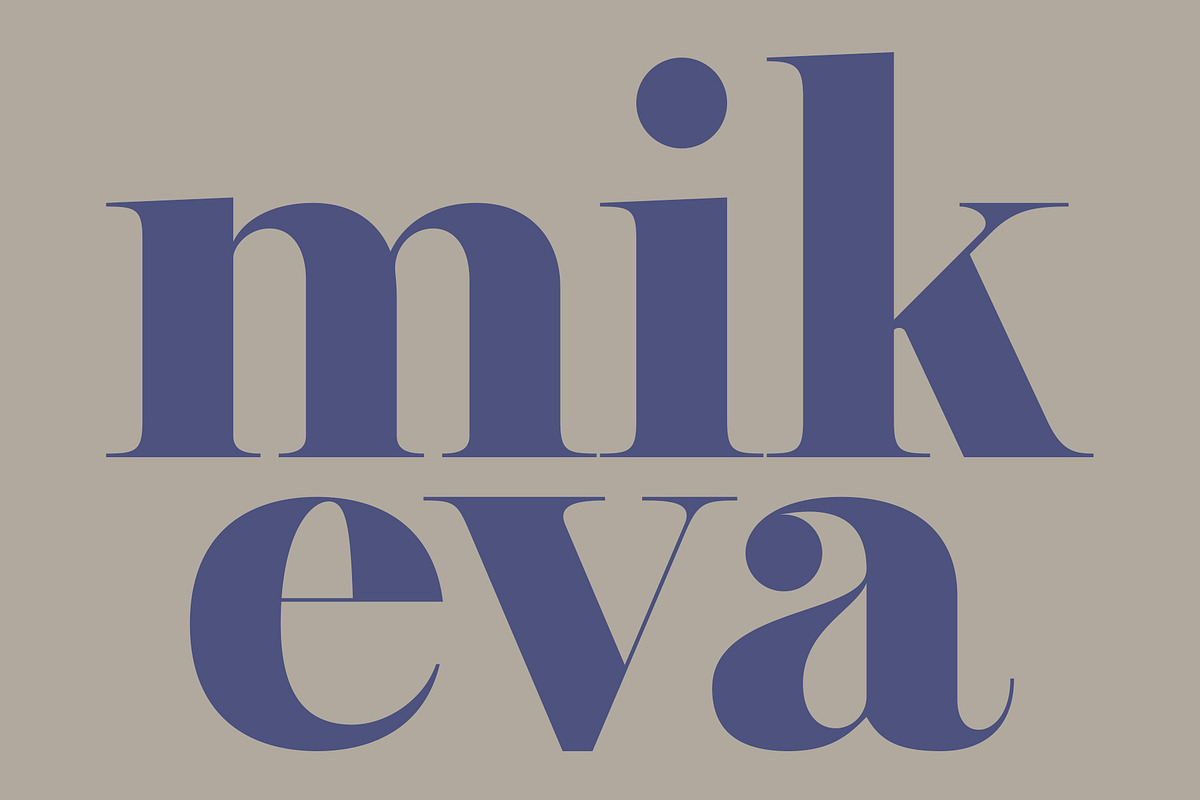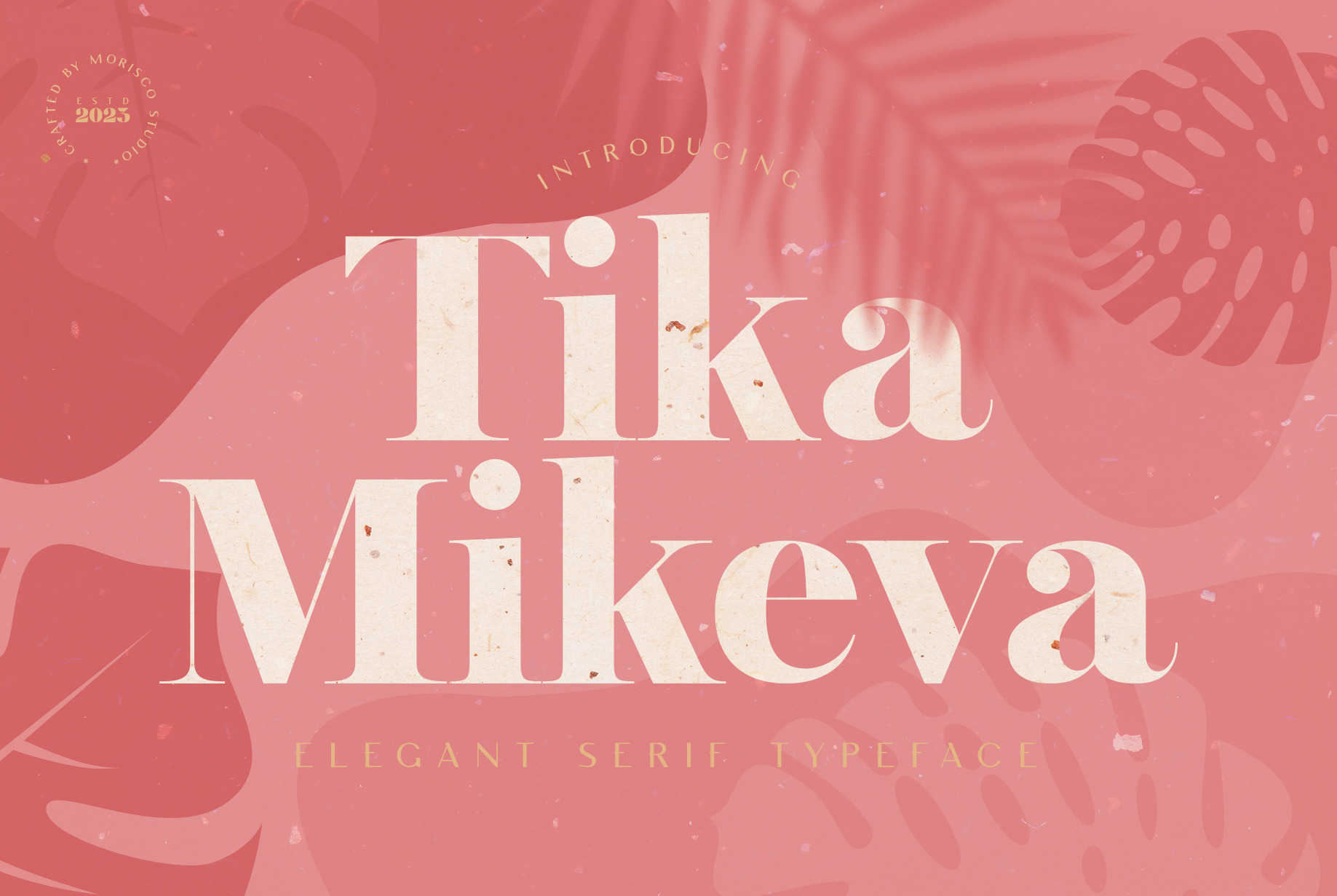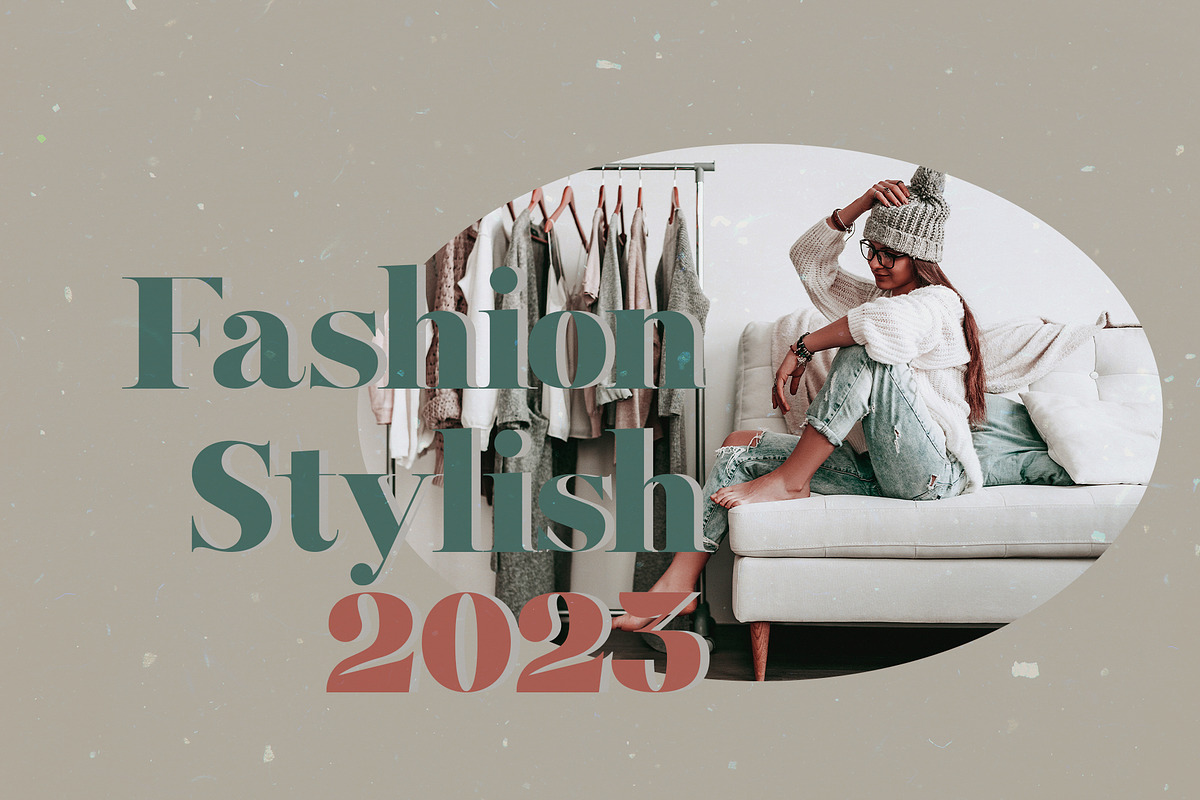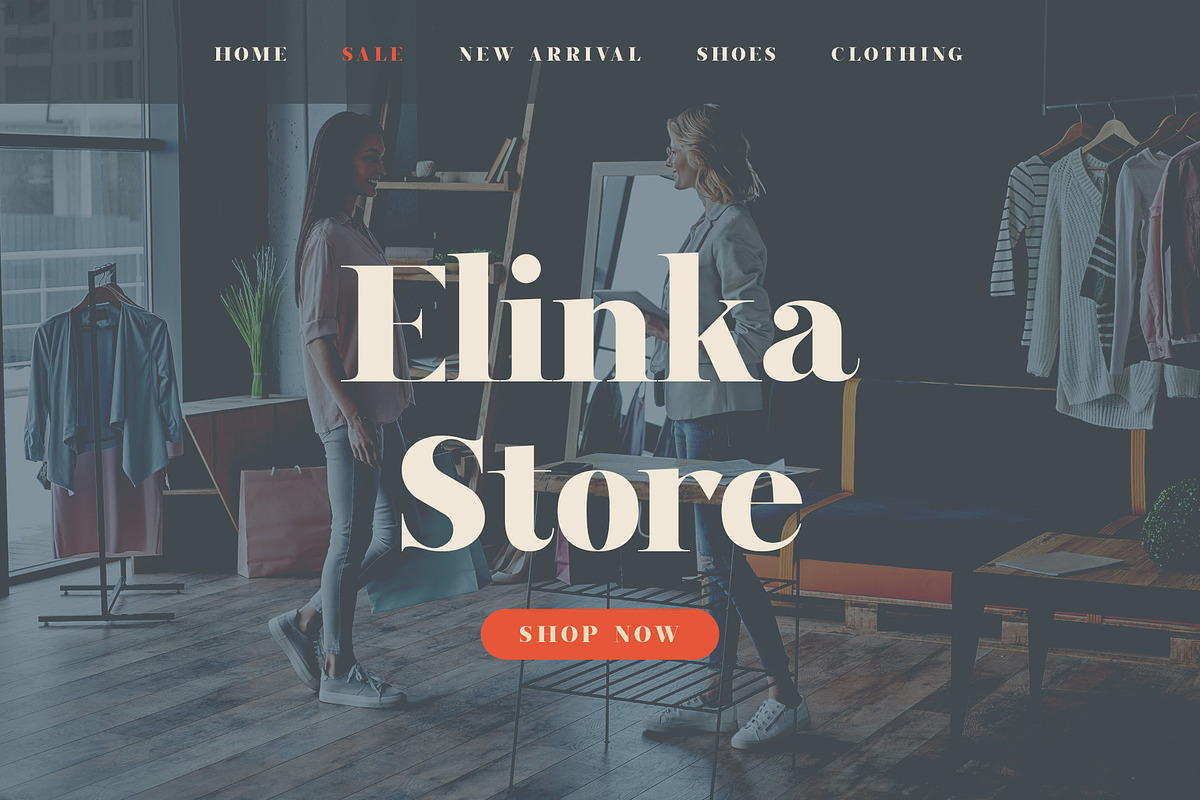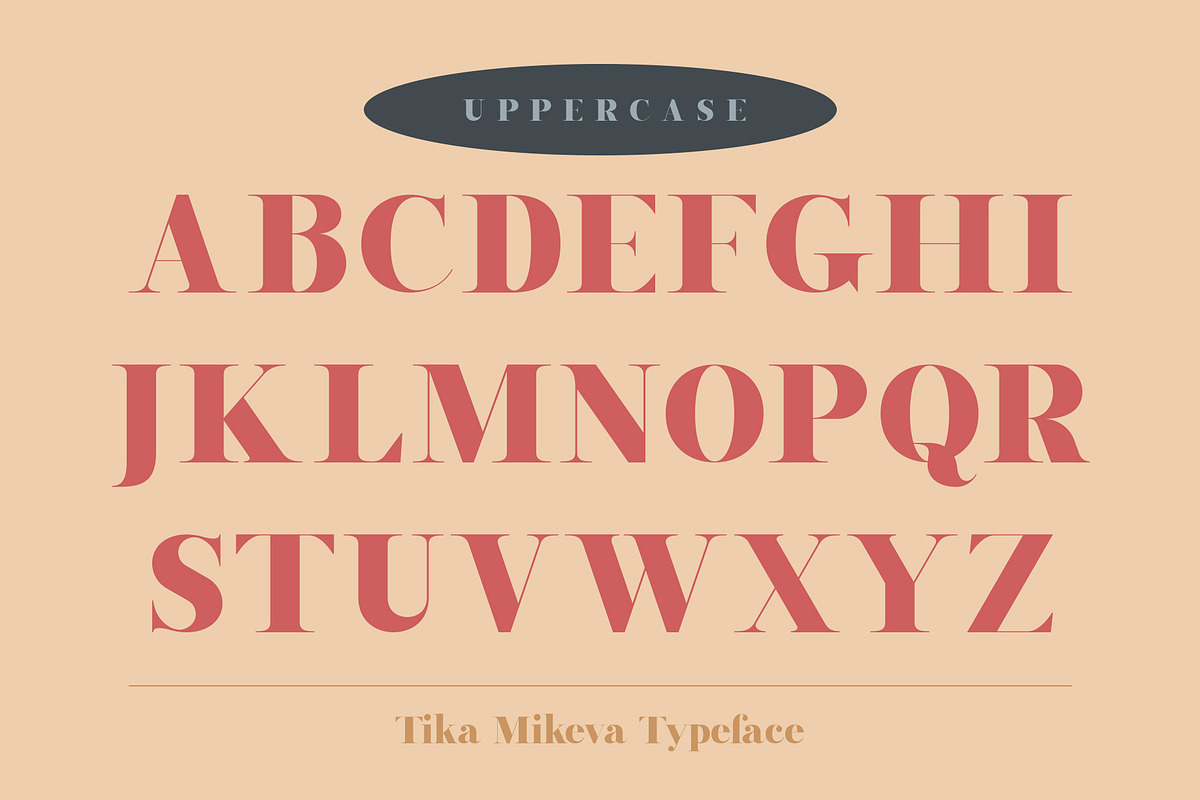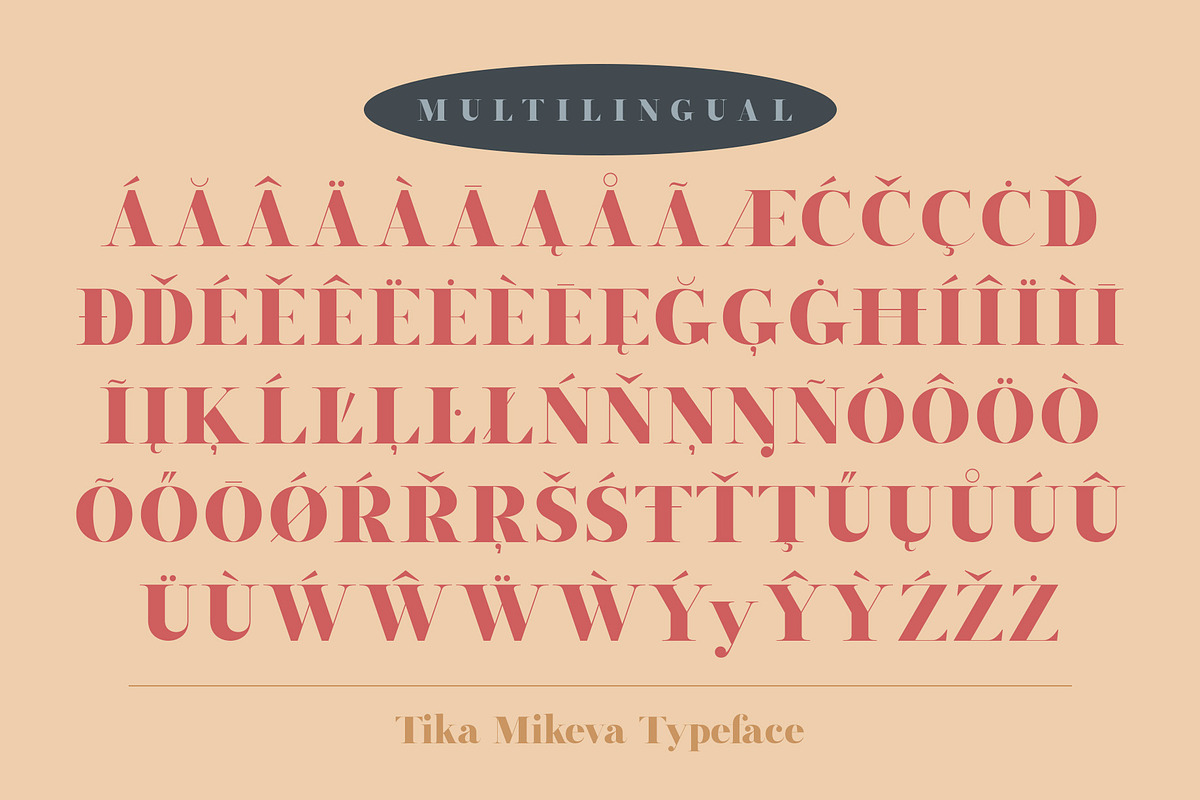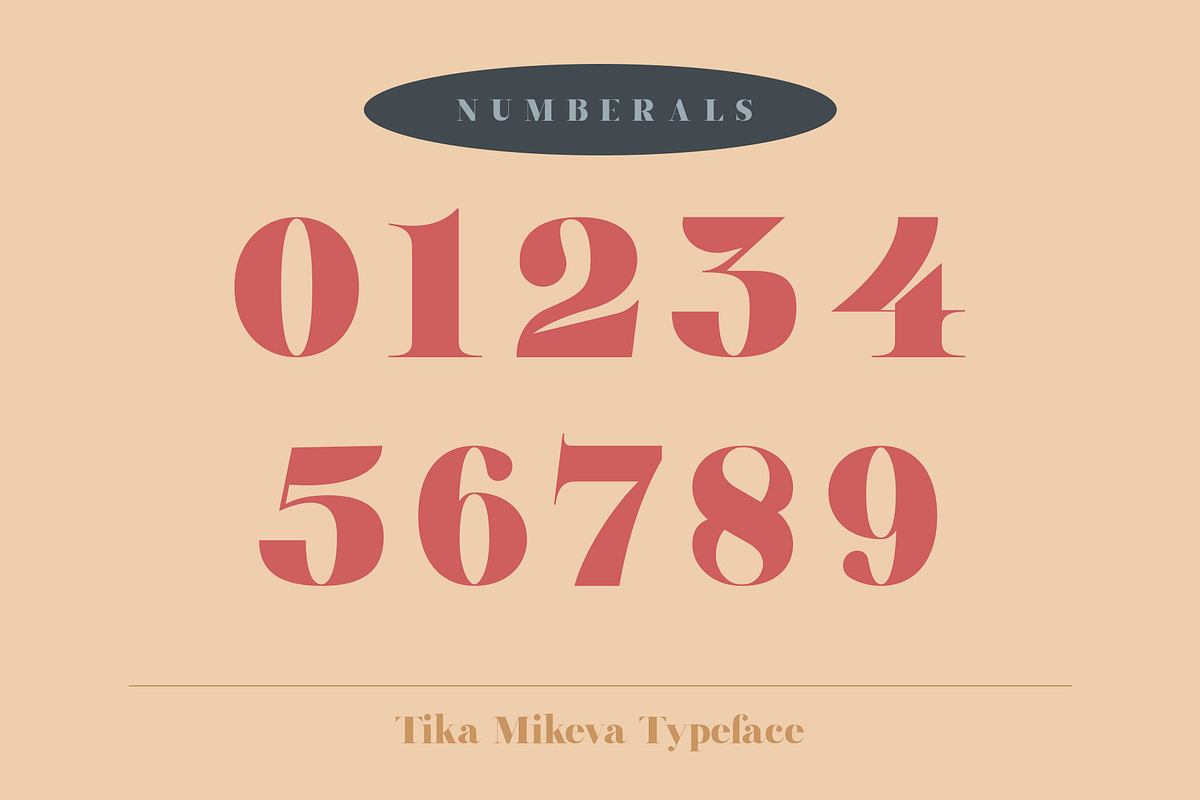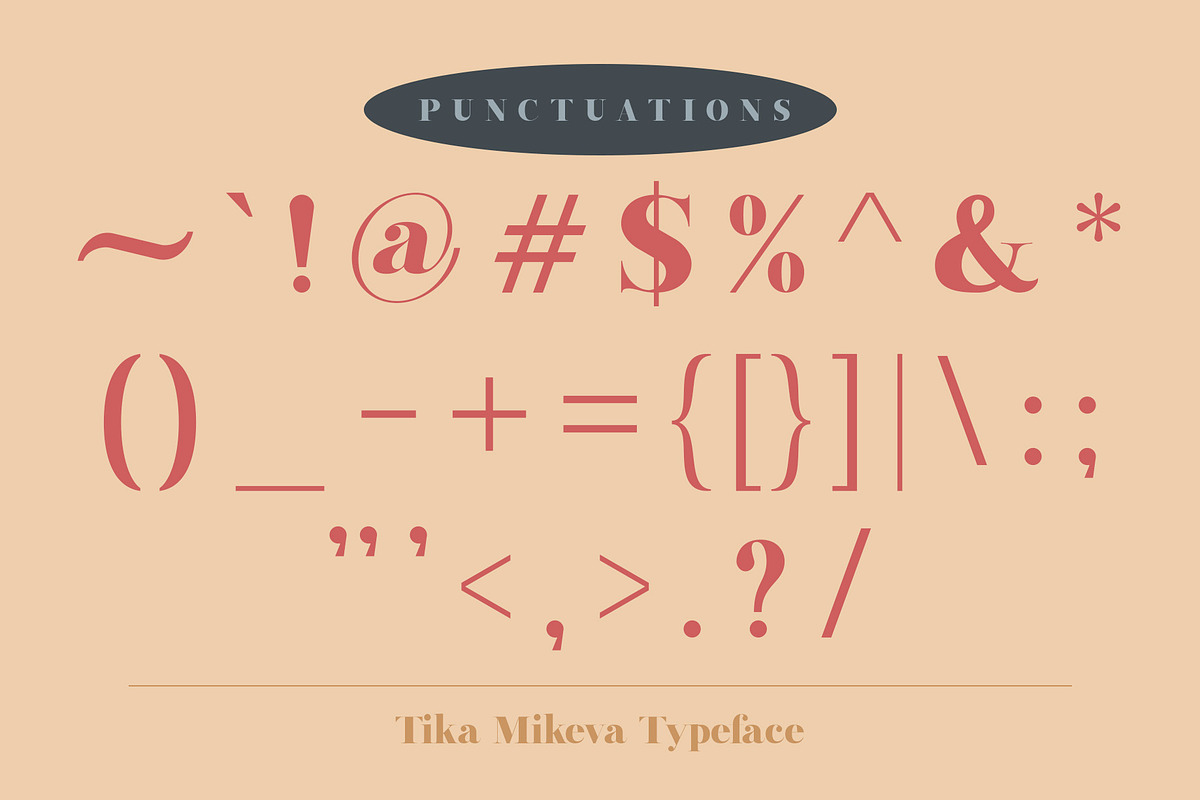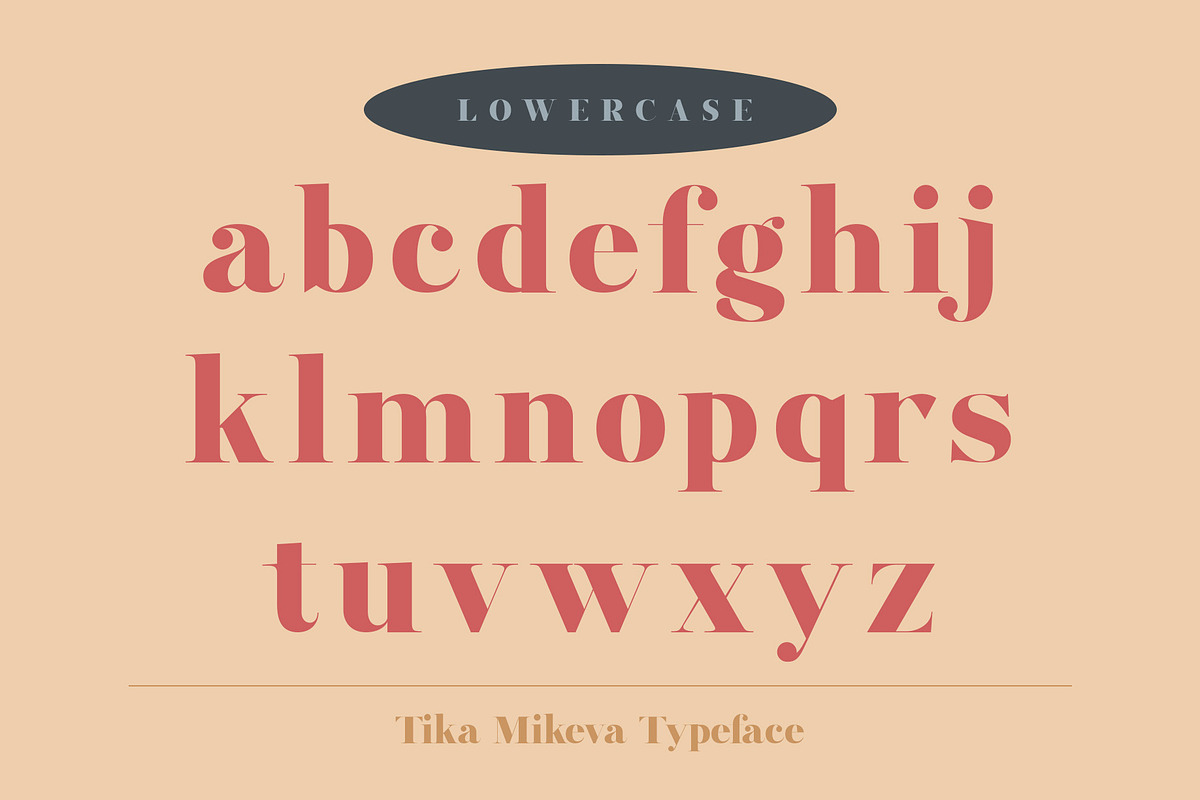
Tika Mikeva - Elegant Serif Typeface
Tika Mikeva is an elegant serif typeface with a unique character designed by morisco studio. This typeface is well-suited for headlines and any project, like branding, print template, logo, and more.